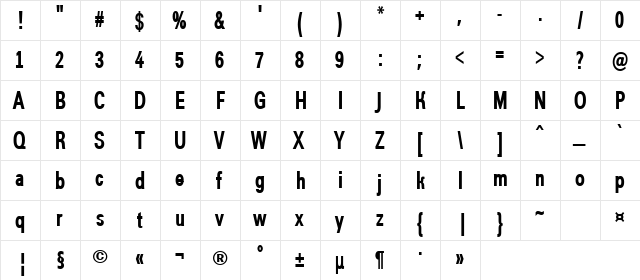
a_GroticCn Bold
Design Context for a_GroticCn Typeface
a_GroticCn is a composed and adaptable typeface that performs quietly and consistently across a wide range of design contexts. The heavy weight commands attention and anchors typographic hierarchies.